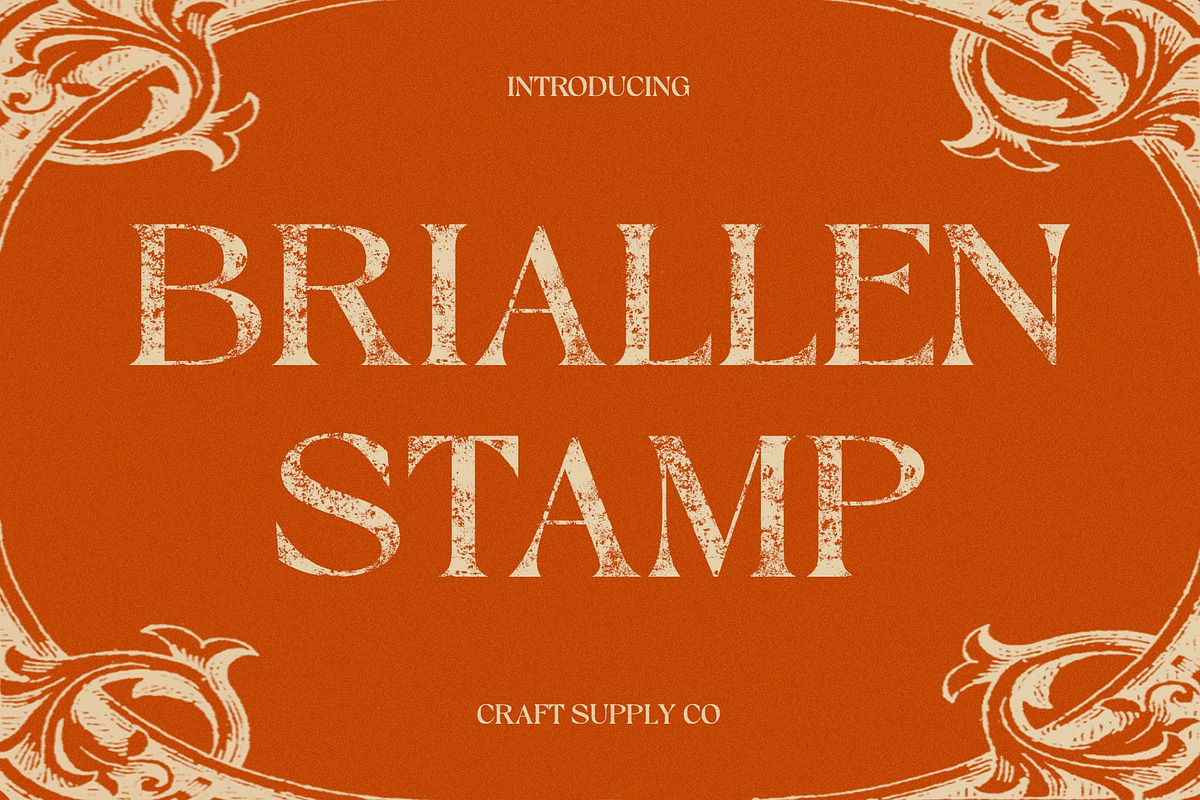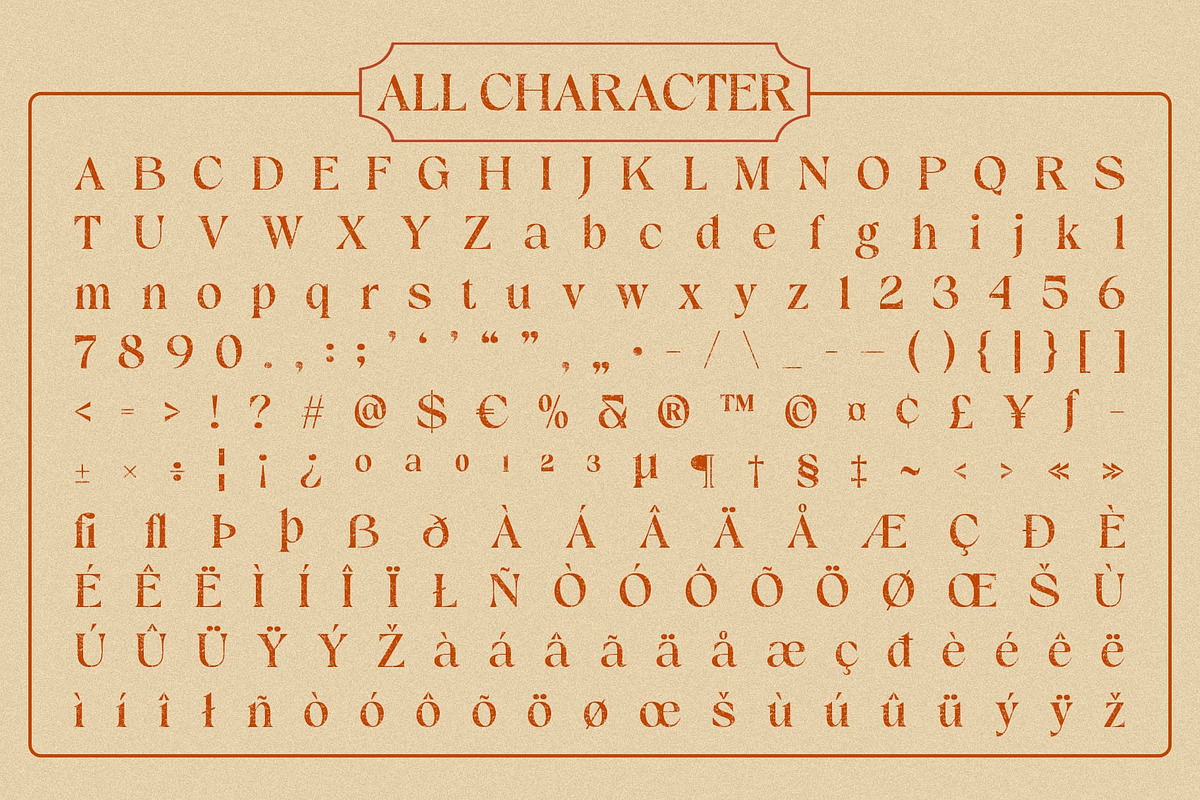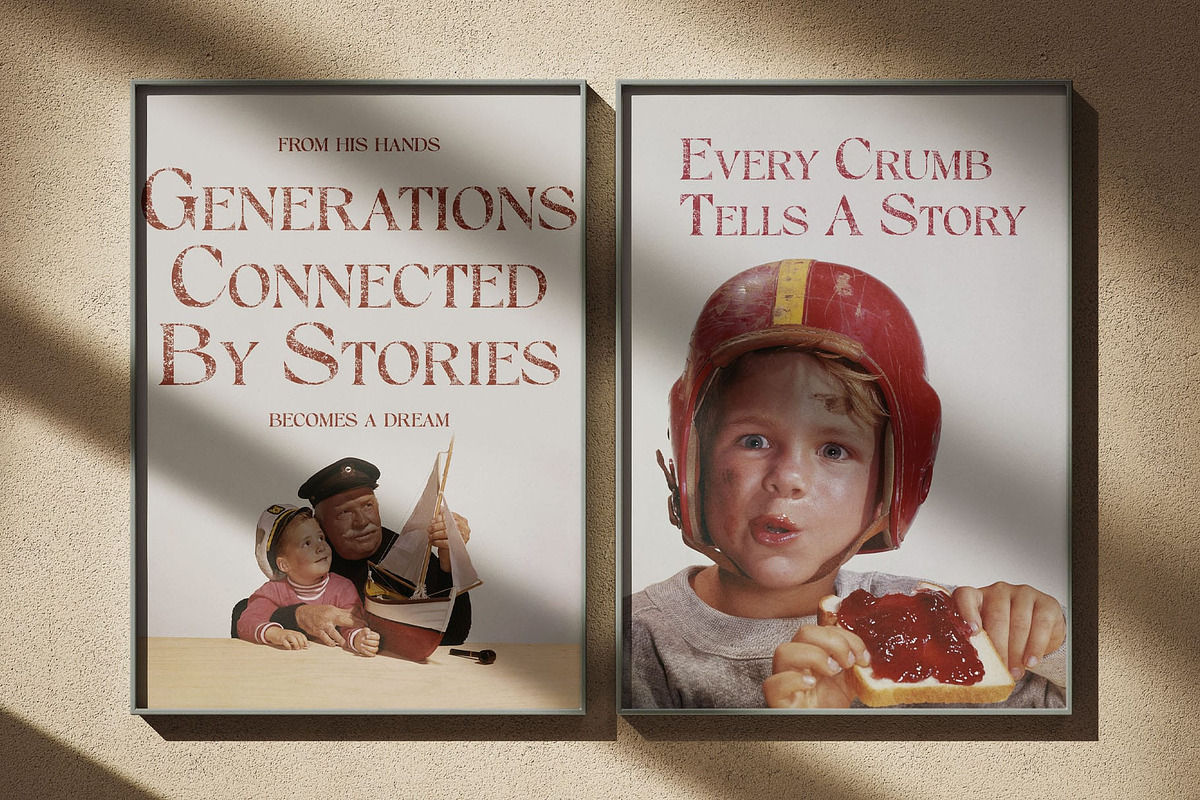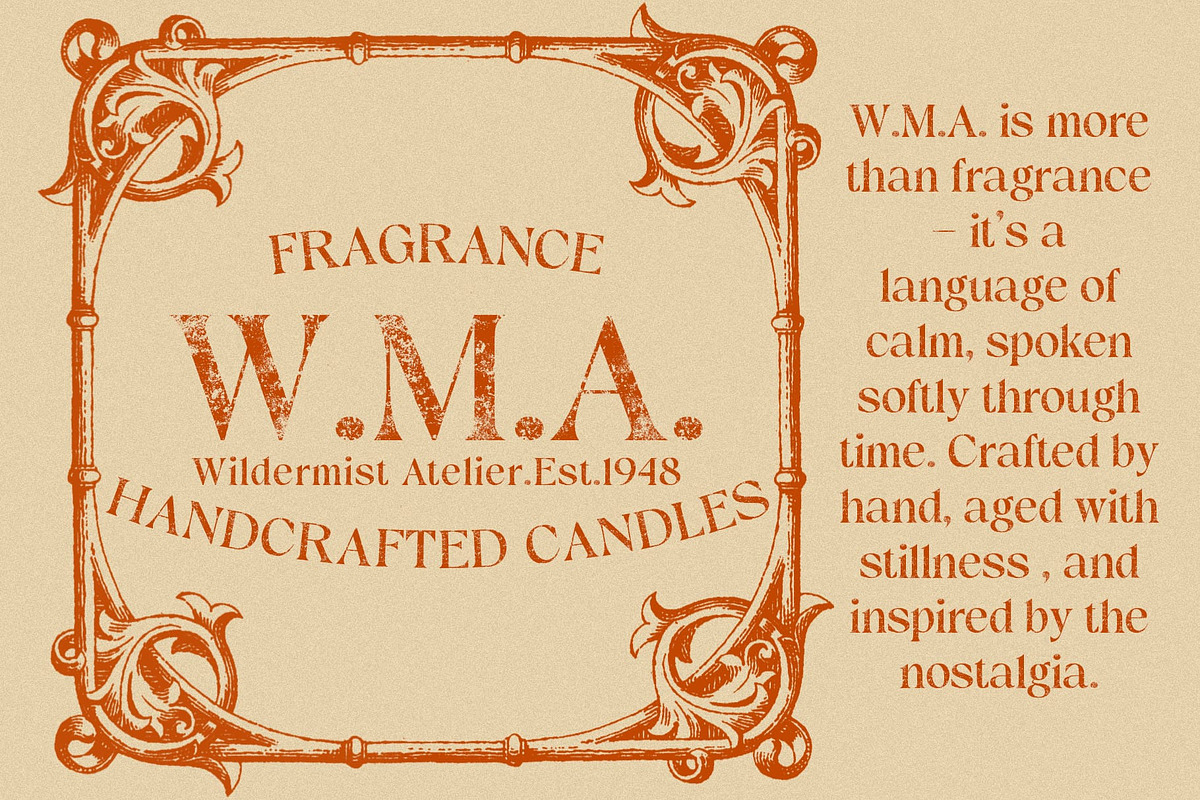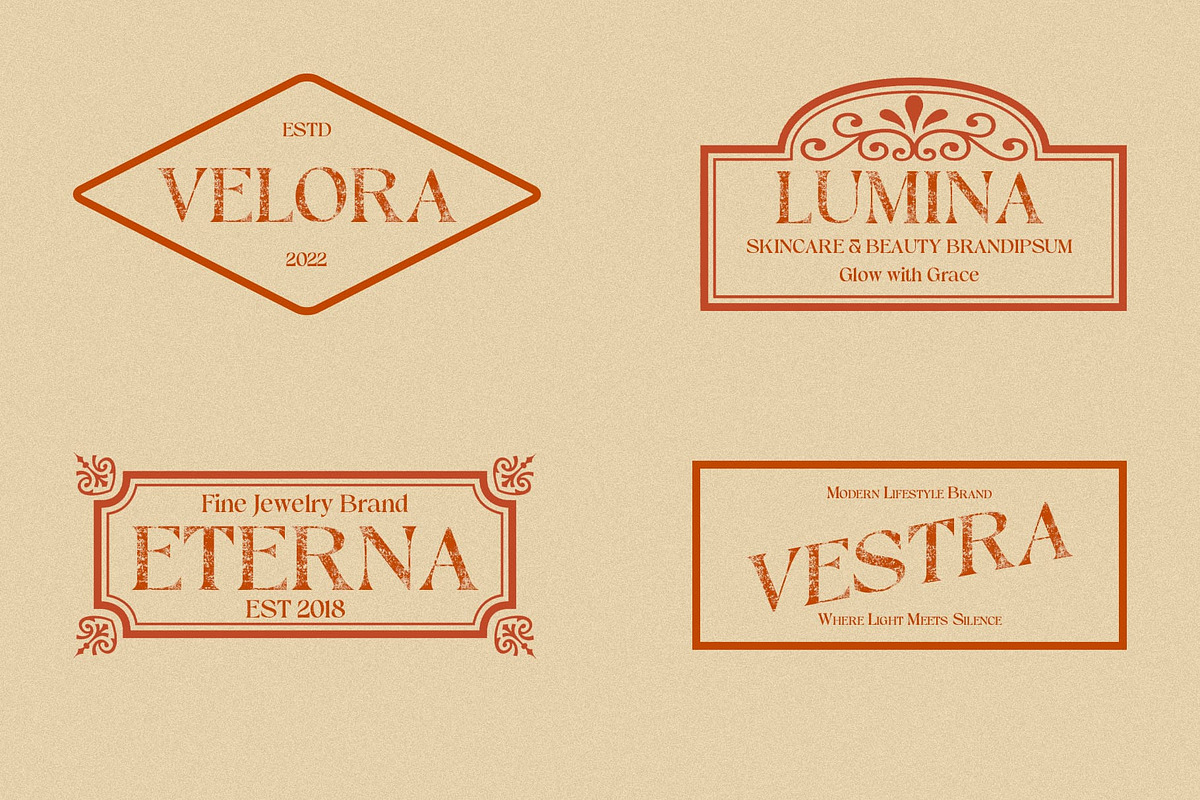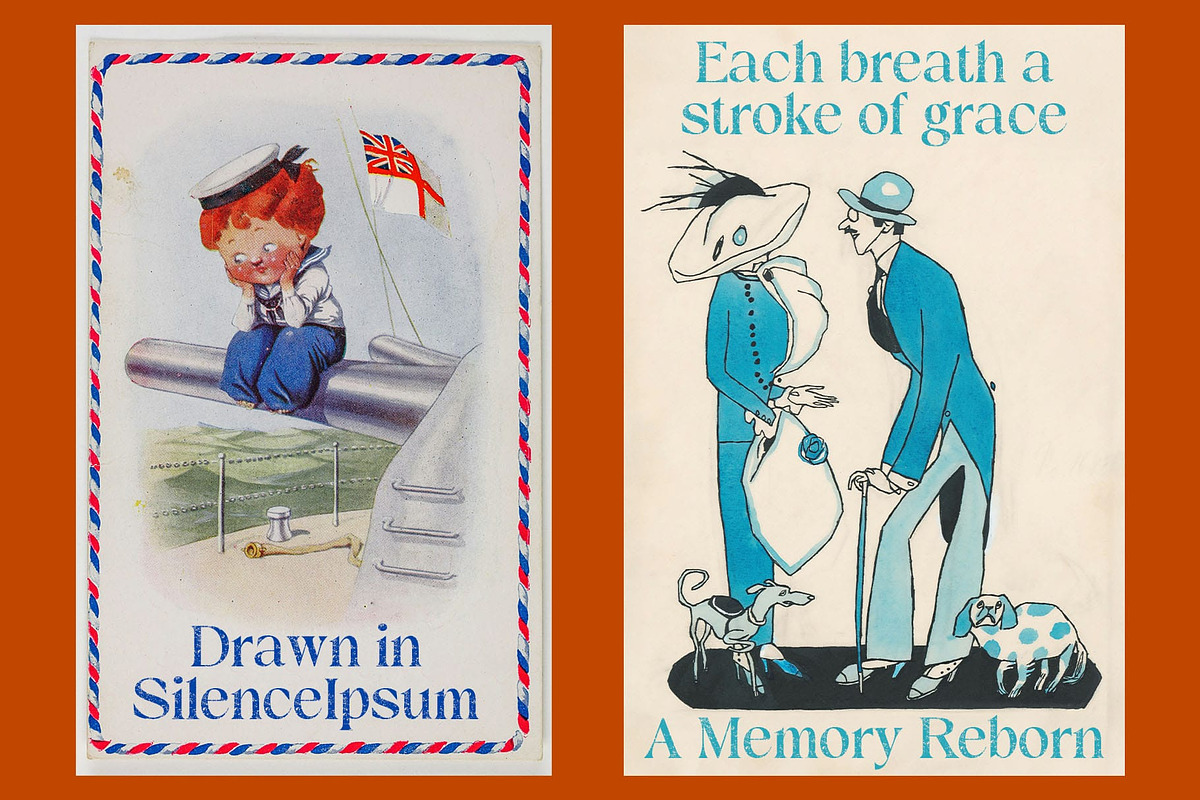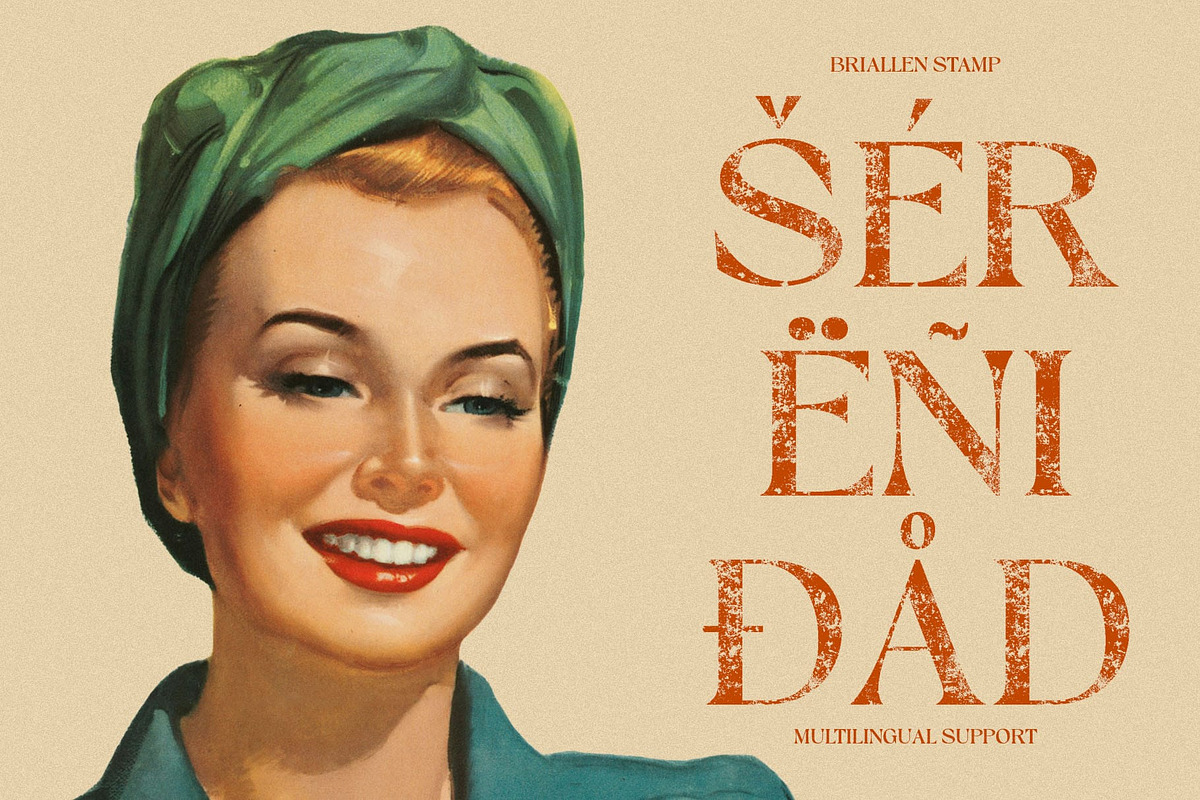
Briallen Stamp
Briallen Stamp – Artistic Elegance with Vintage Soul
Refined Serif with Decorative Charm This is a stylistic serif font that blends artistic detail with timeless sophistication. Its decorative alternates and unique ligatures add a refined, custom-made touch, while the stamp texture introduces a subtle vintage character making each letter feel handcrafted and full of personality.
Creative Expression with Classic Roots Designed for both beauty and impact, this font balances elegant serif structure with artistic flair. The textured finish enhances its visual depth, evoking the charm of traditional printmaking and giving your typography a warm, authentic tone.
Perfect for Logos, Posters, and Editorial Design Whether used in branding, magazine layouts, or creative posters, Briallen Stamp brings sophistication and originality to every project. Its unique mix of modern elegance and nostalgic imperfection creates a high-end yet approachable aesthetic that stands out effortlessly.
A Vintage Touch for Modern Creativity This font captures the harmony between refinement and rustic charm a typeface that speaks with both grace and character, perfect for designers seeking a creative, luxurious, and timeless serif.